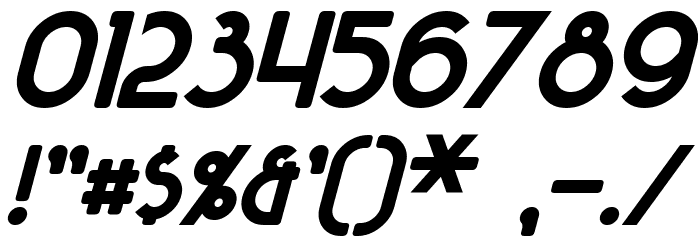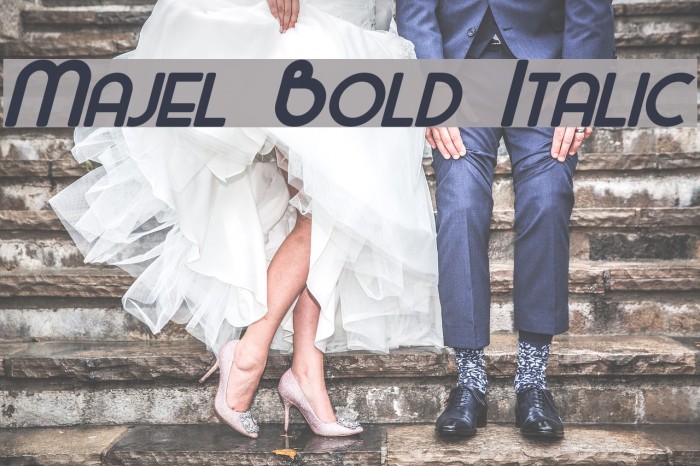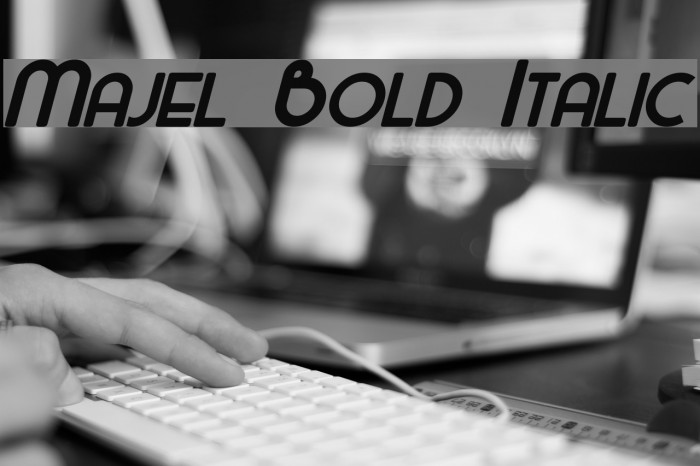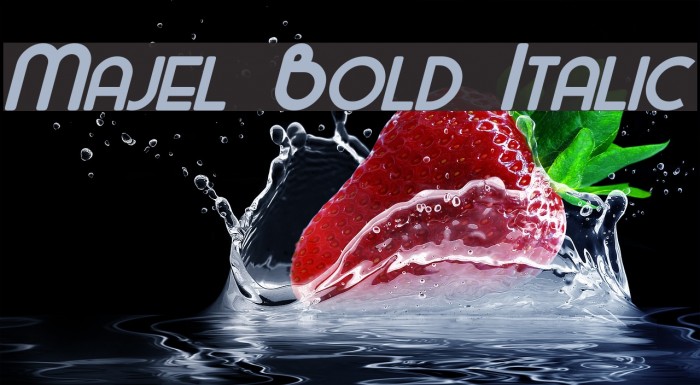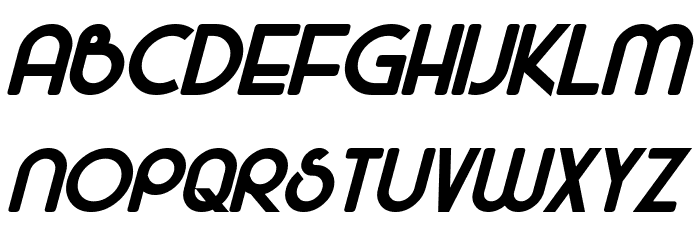
Majel Bold Italic Font
This font features a bold and italic style with a modern, sleek appearance. The characters are slightly slanted, giving a dynamic and forward-moving impression. The strokes are consistent in thickness, providing a uniform look across all characters. The rounded edges and smooth curves add a touch of elegance, while the overall design maintains a sense of boldness and strength. The spacing between characters is tight, which enhances its compact and cohesive appearance. This font is ideal for making a strong visual impact.
A bold, italic, and modern font with sleek, rounded characters.
• Proposed Projects: Ideal for branding, advertising, and headlines where a strong, modern impression is desired.
• Category: Sans-Serif
• Bold: Yes
• Italic: Yes
• Weight: Bold
• Width: Normal
• Character Spacing: Tight
• Contrast: Low
• Overall Style: Modern
• Use Case: Headlines, Logos, Branding